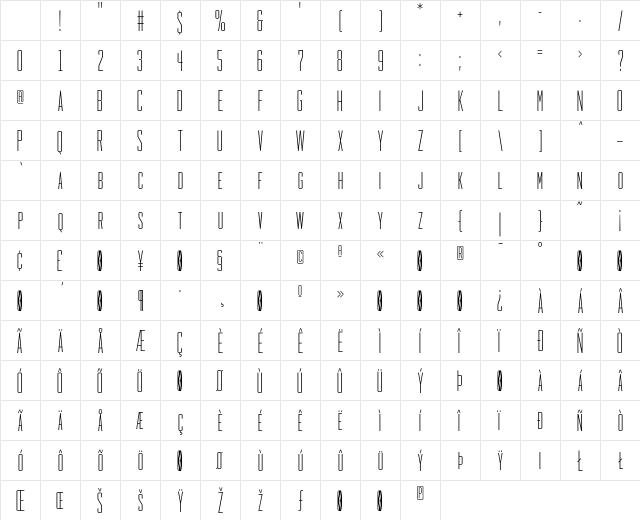
Complete HeraldGothic LightSmallCaps glyph index. Displaying only characters natively supported by HeraldGothic LightSmallCaps font.
HeraldGothic takes a clean, functional approach - its unadorned letterforms prioritise legibility and work reliably across screen and print environments. Its slender proportions lend an understated elegance to any composition.
Font Pairing: Pair HeraldGothic with a medium or bold serif for headlines - the weight contrast creates an elegant, high-end feel.
Pro Tip: Use HeraldGothic with generous tracking and line-height for the most luxurious effect - light sans-serifs reward spacious, considered layouts.